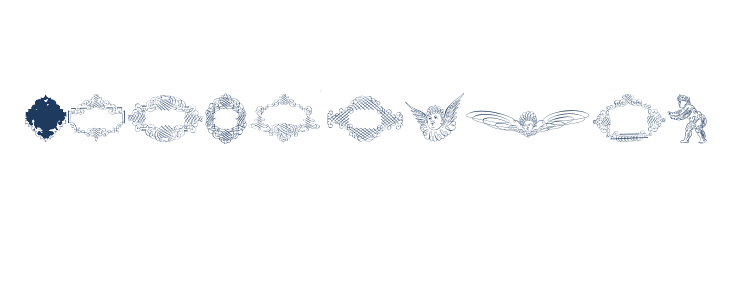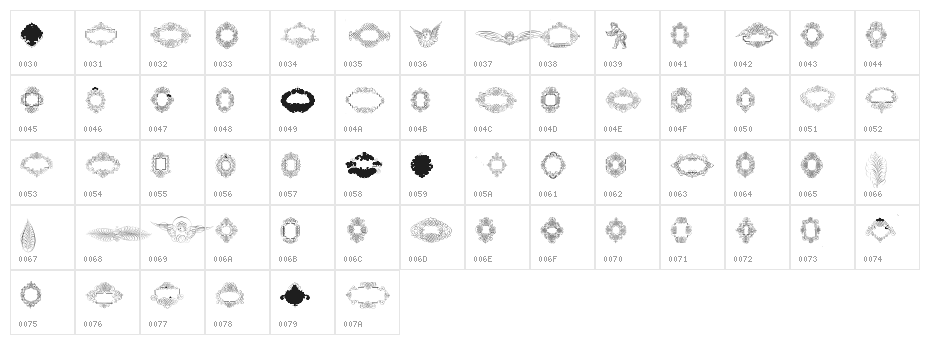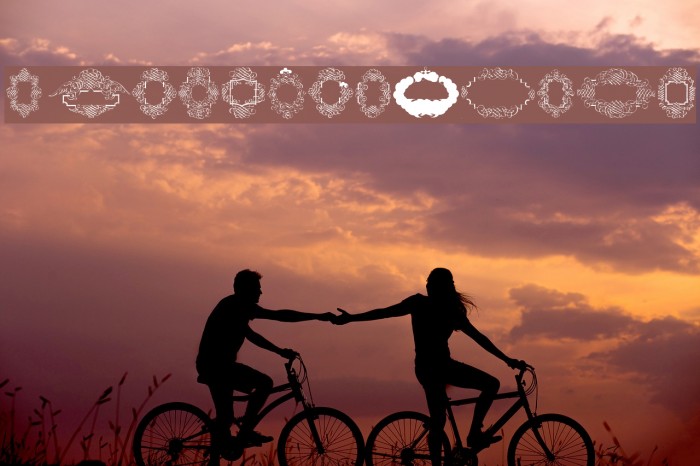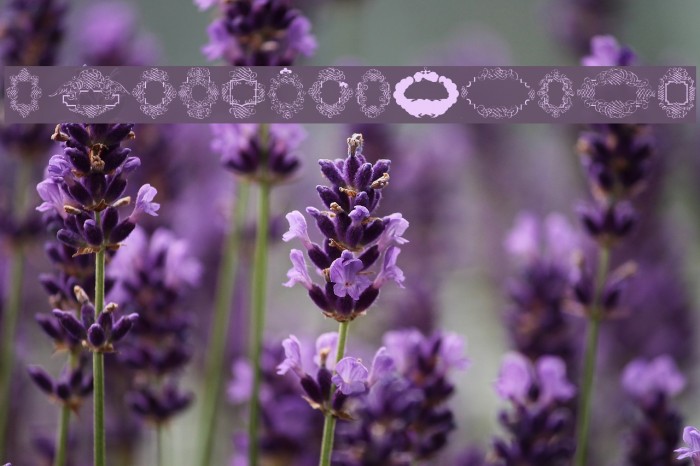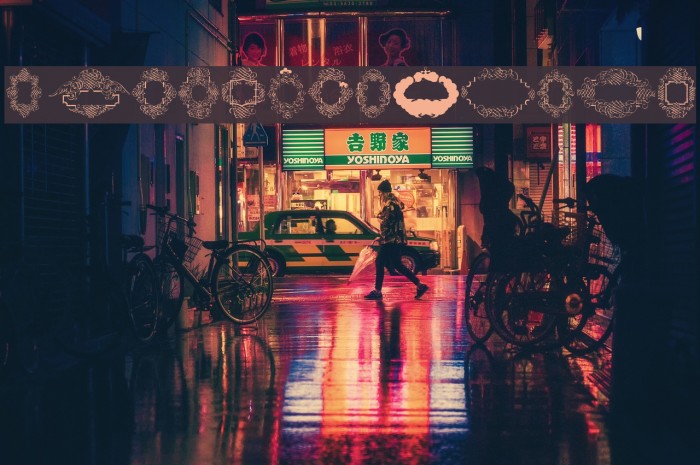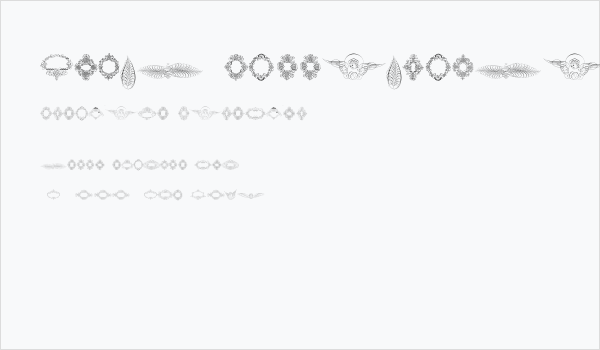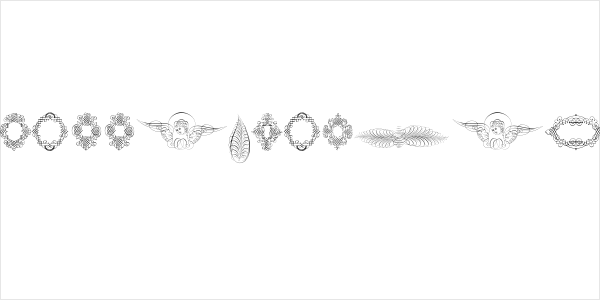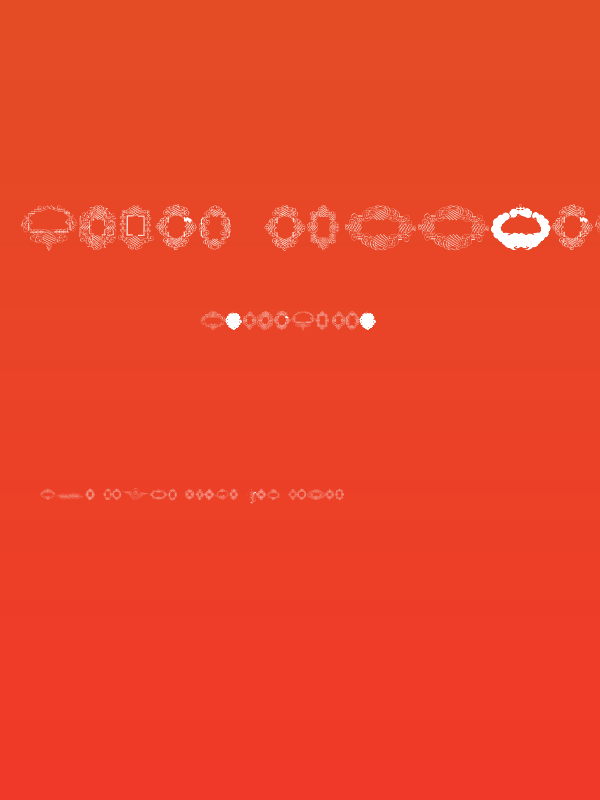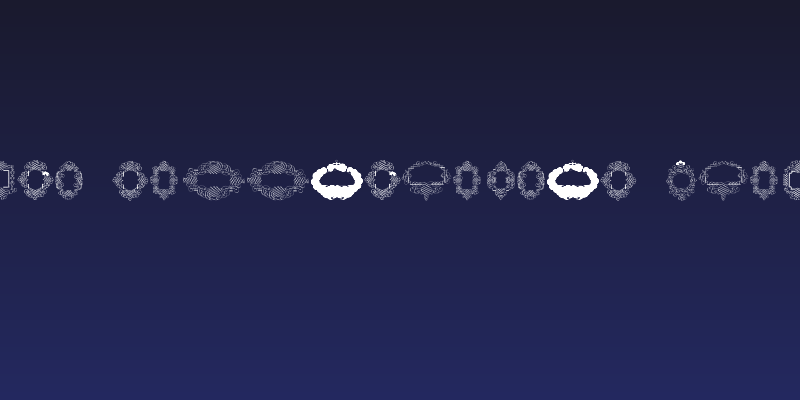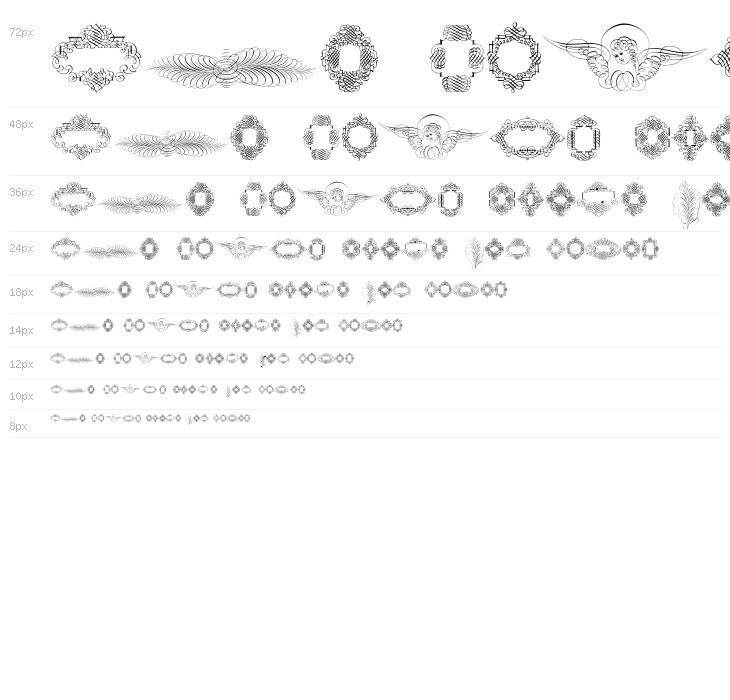
Rough Calligraphic Frames Font
Rough Calligraphic Frames Description
A collection of ornate, hand-drawn calligraphic frames and decorative elements with rough, sketch-like line quality. The designs feature flourishes, scrolls, feathers, and cherubs, evoking a vintage, baroque aesthetic. The frames vary in shape and complexity, with some filled and others open, suitable for embellishing text or images.
Overall StyleVintage, Decorative, Baroque
Use CaseFrames, Borders, Decorative accents
Proposed ProjectsWedding invitations, certificates, vintage labels, greeting cards, decorative borders, scrapbooking, branding for luxury or artisan products.